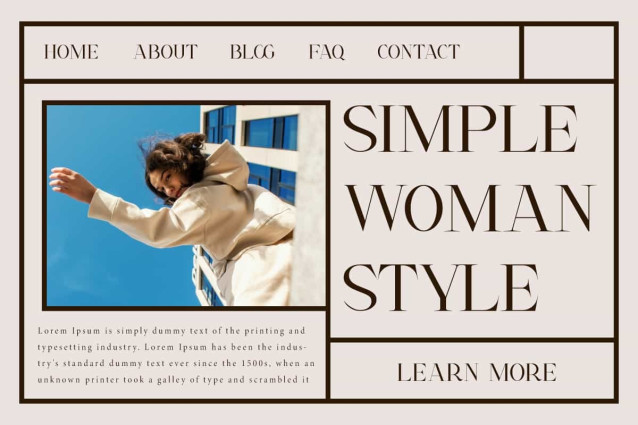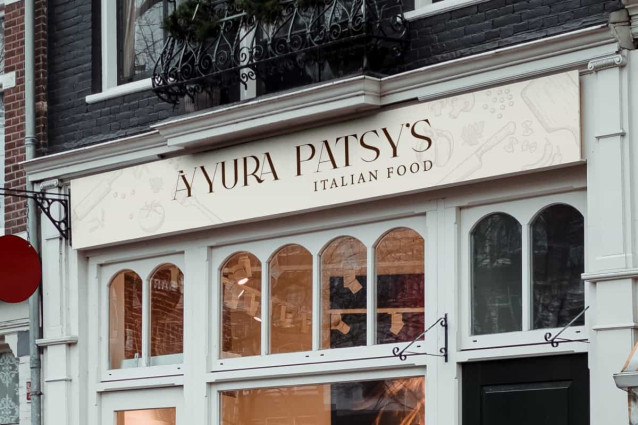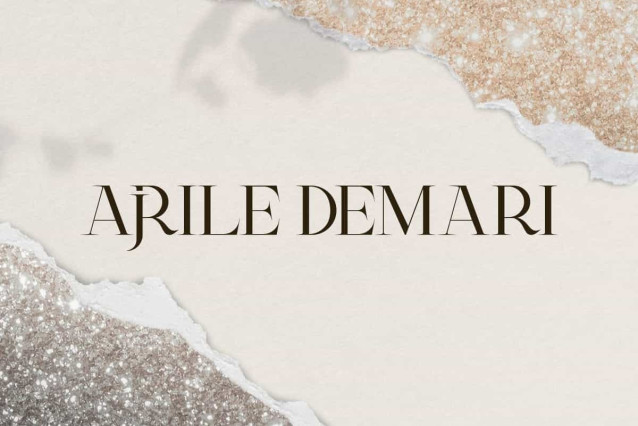
Ajrile Demari Font
Ajrile Demari Font is a luxurious display serif font designed with elegant details and a unique touch. With sharp, bold, and classy letter characters, this font will be perfect for any project, such as advertising, brand image, custom design, invitation, label, quotes, stationery, template design, website, and more!
Ajrile Demari Font includes full set of Uppercase and Lowercase Basic Characters, Numerals, Punctuation, and Symbol. The Ligature character will gives a sophisticated and exclusive impression, suitable for any business, such ass accessories and jewelry, beauty product, event or wedding organizer, fashion, florist, furniture, real estate, spa salon, etc.